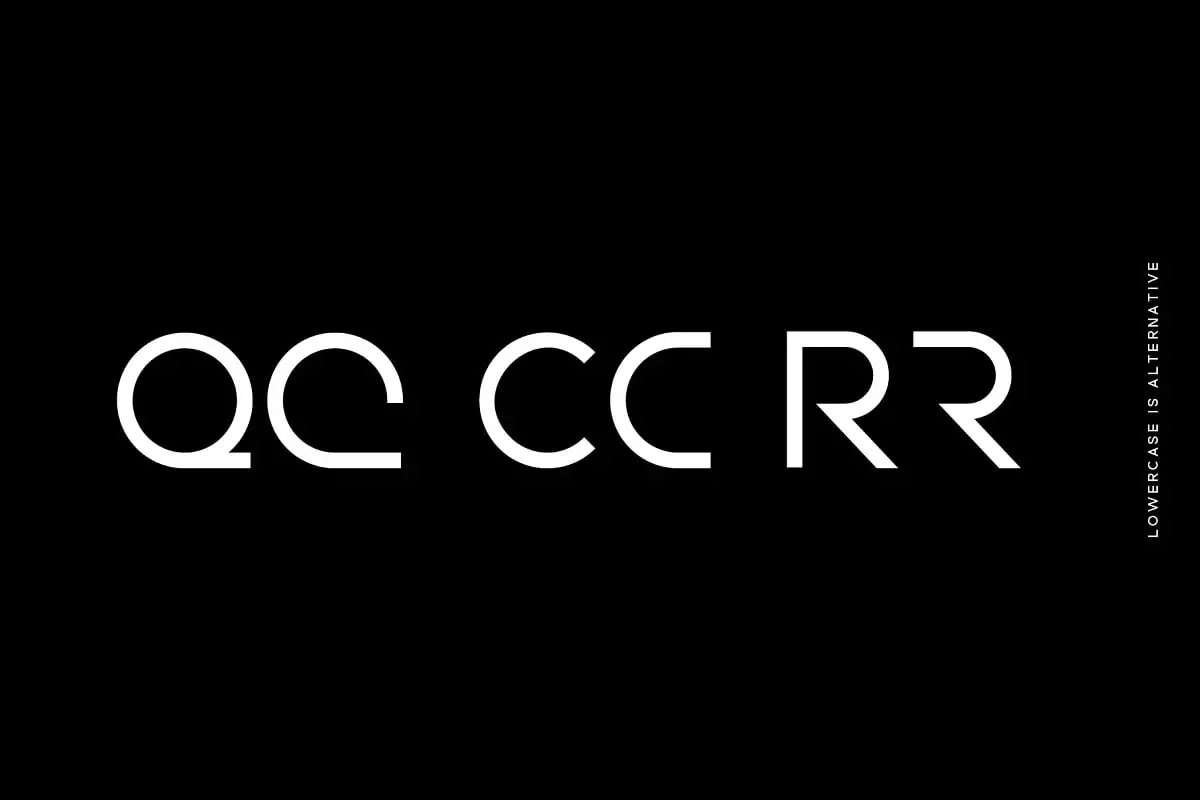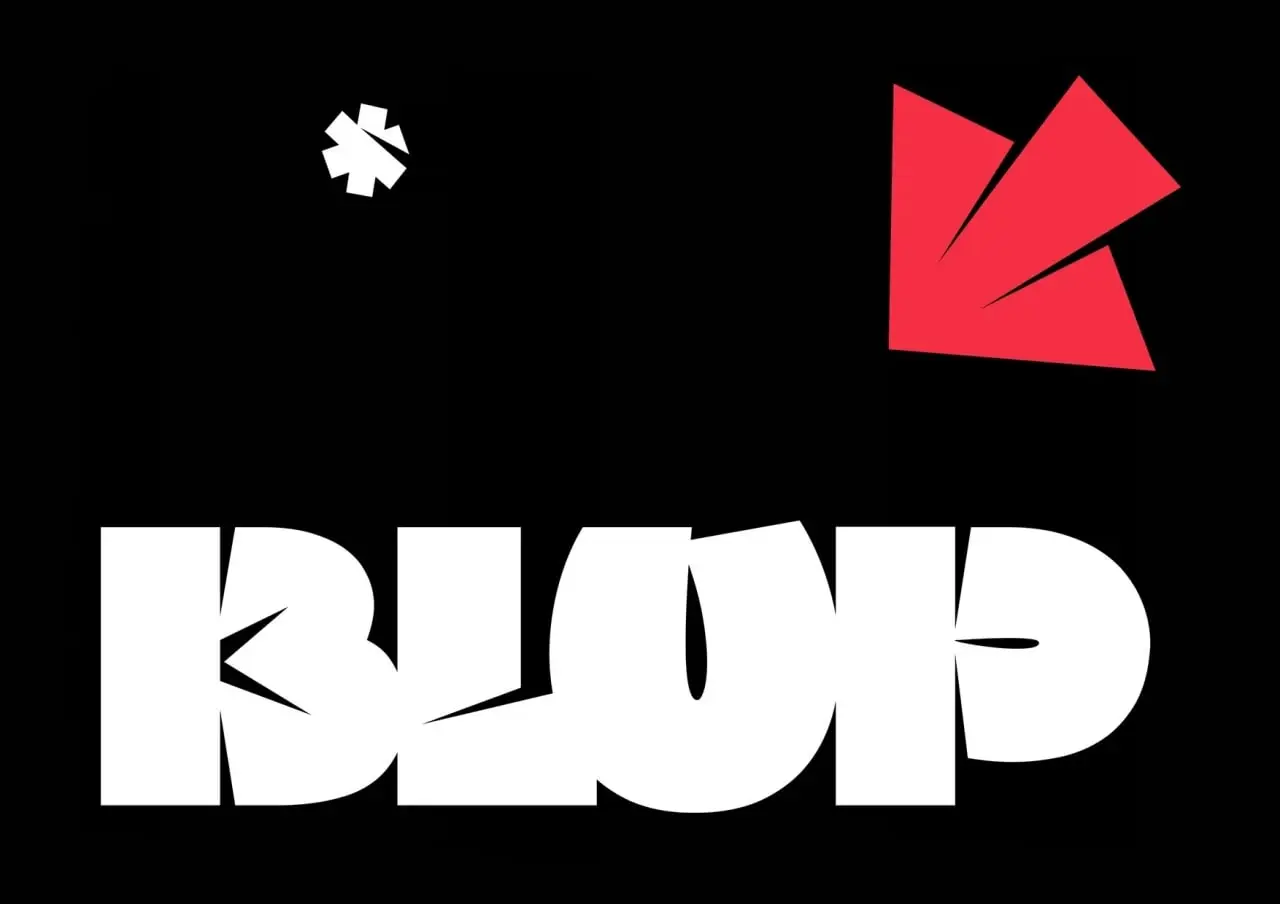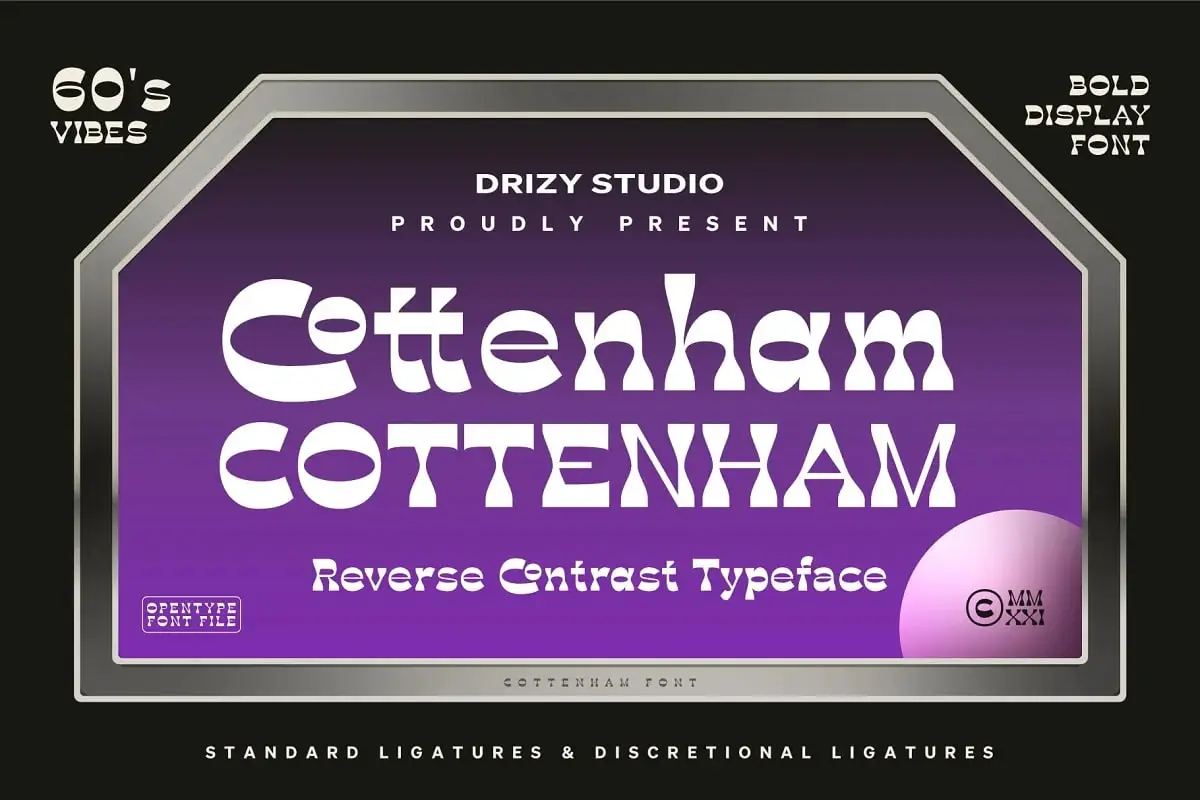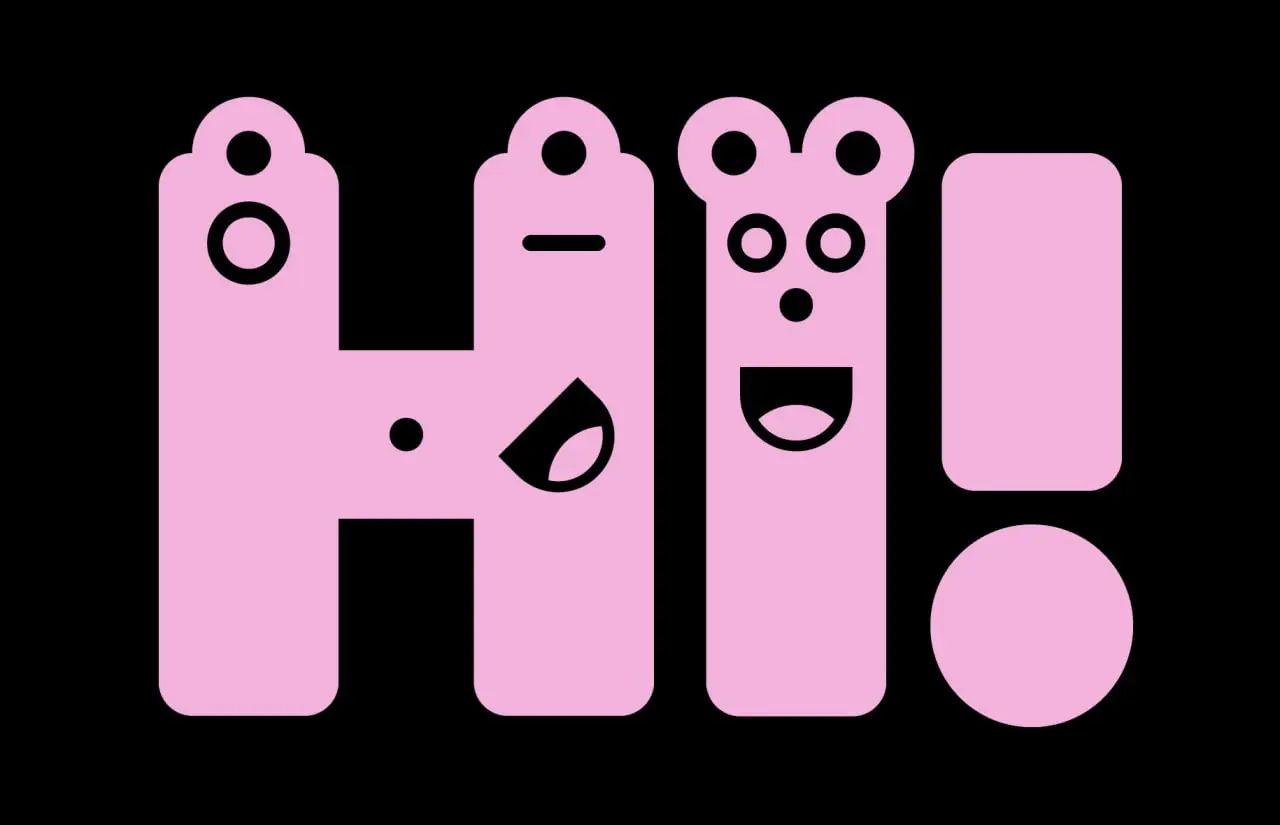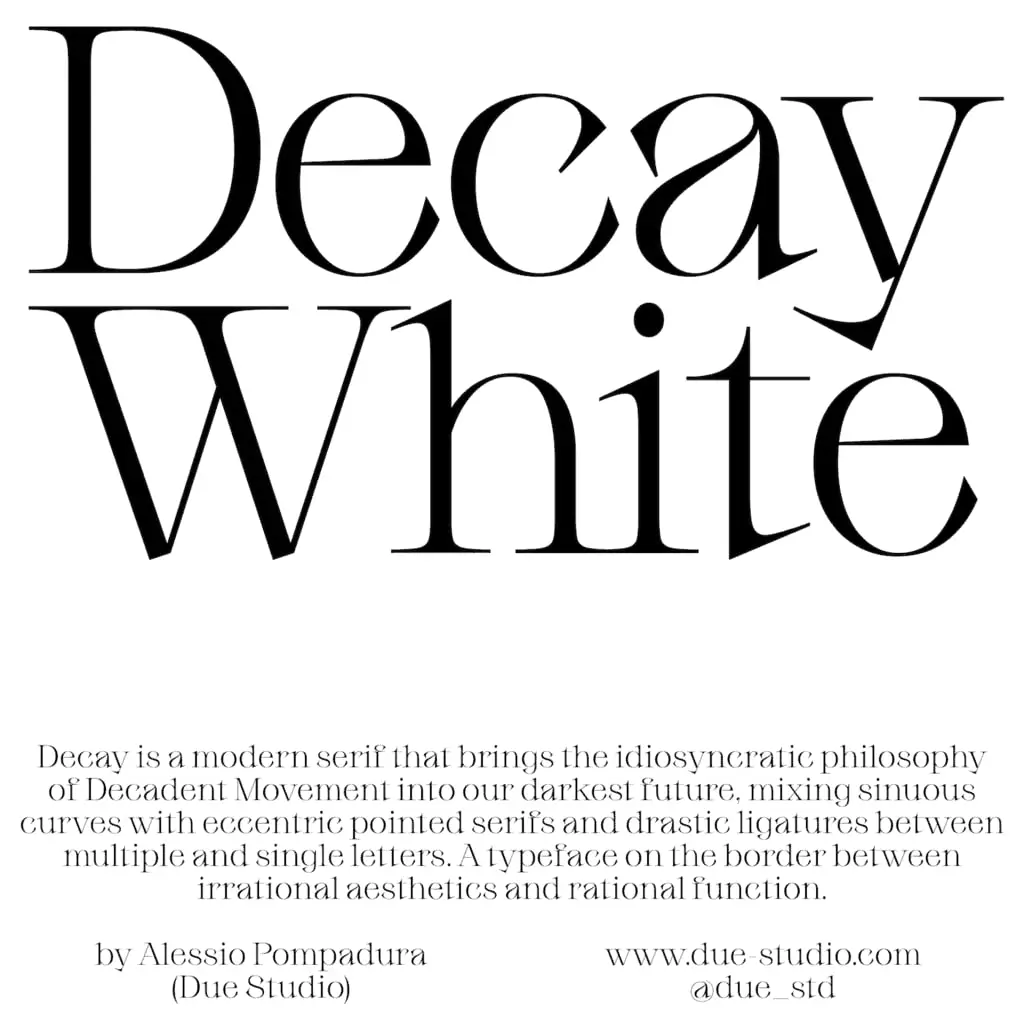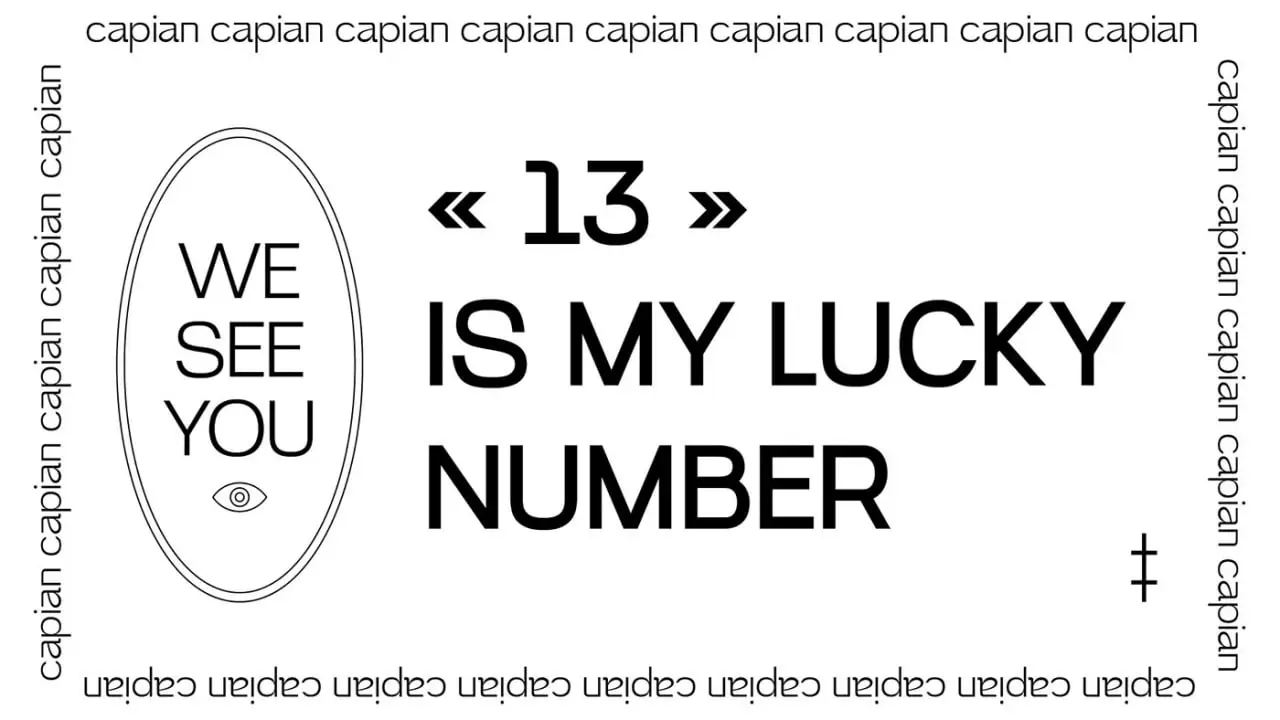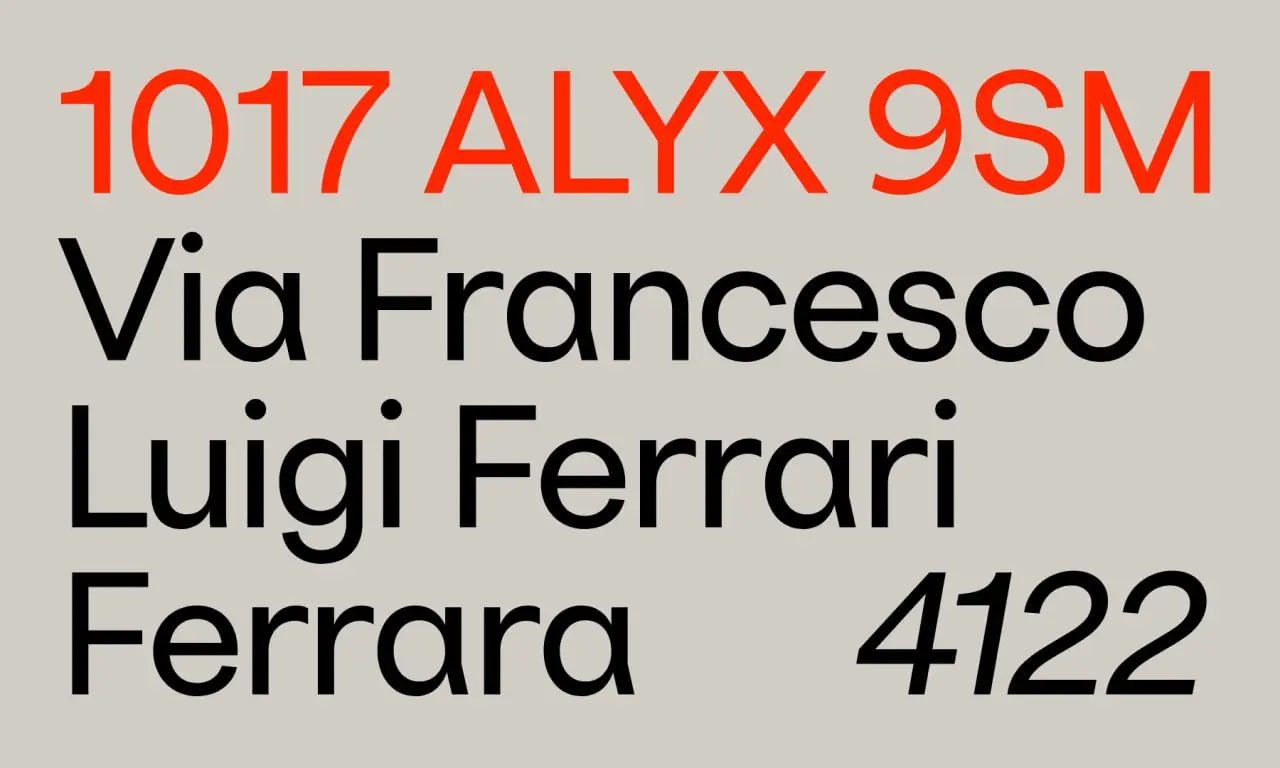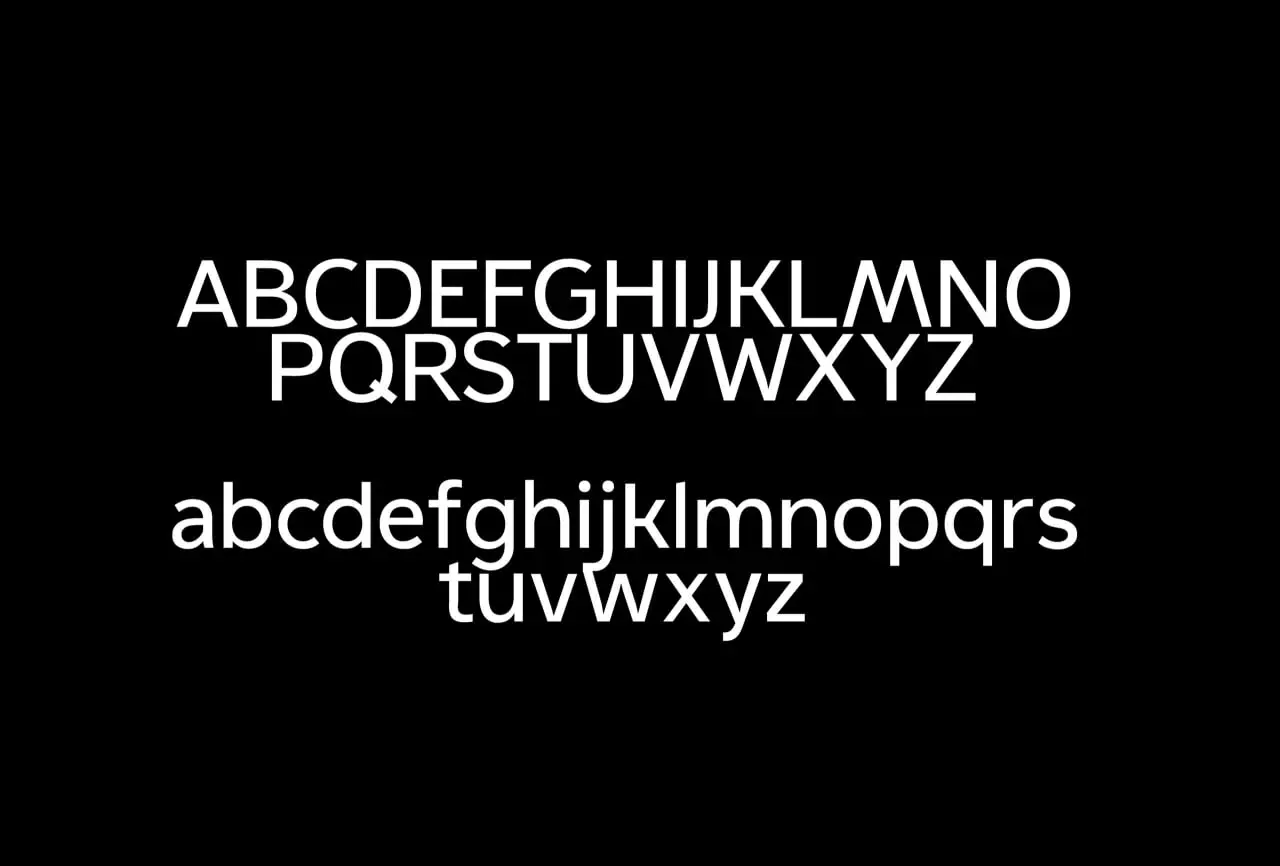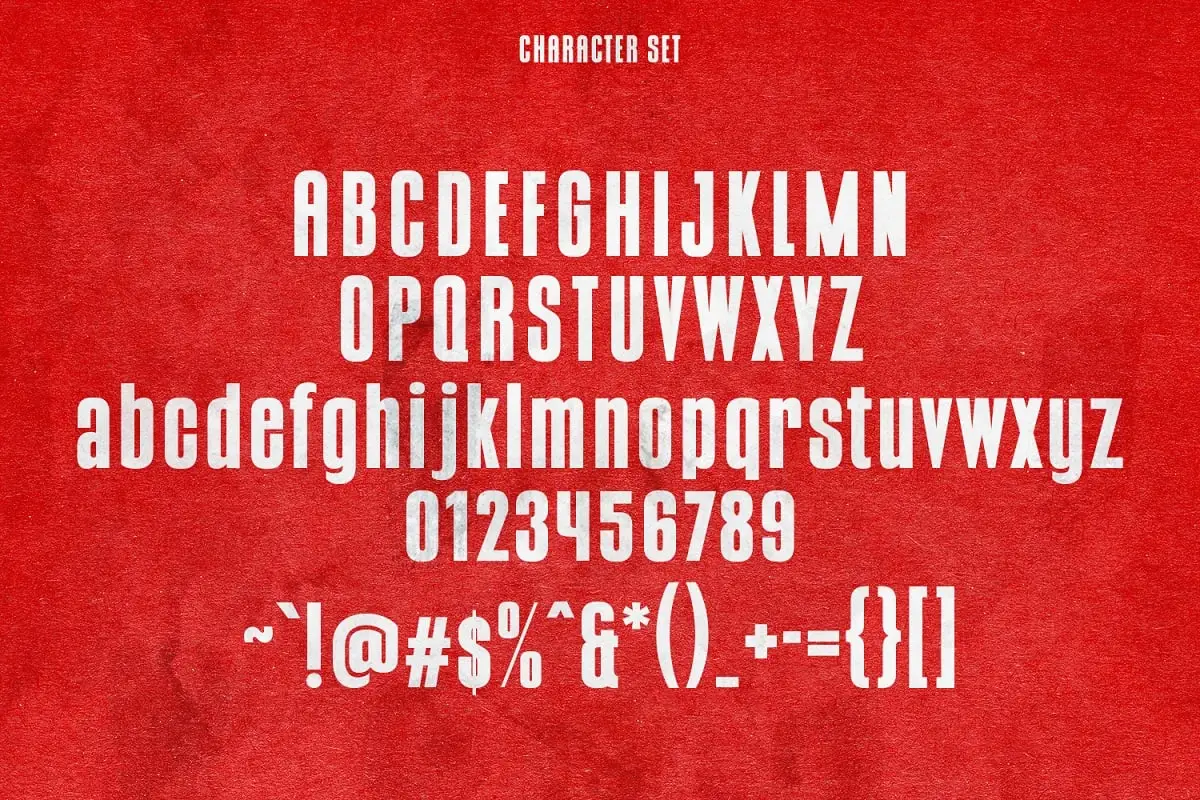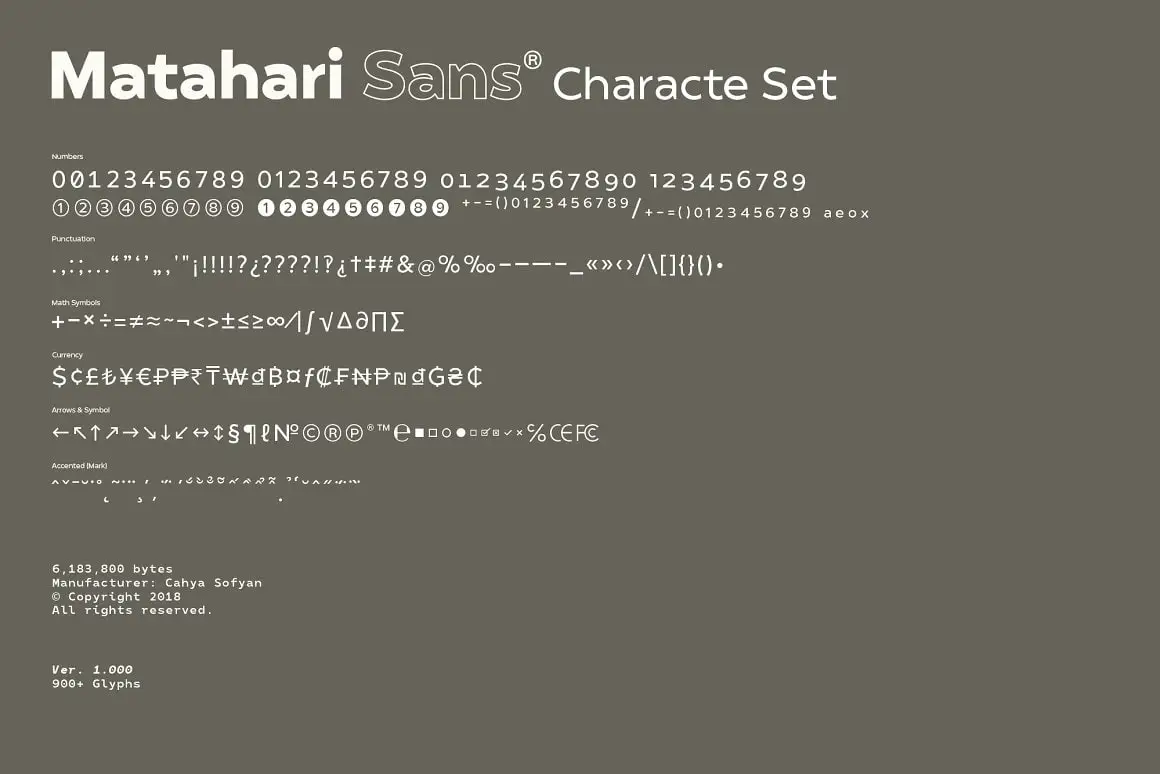
Minomu Font By Owl King
Minomu is a gorgeous blend of modern flair and classic elegance—perfect for logos or editorial projects that need a touch of class. ✨ This typeface is like a warm hug for your designs! 🫂
Lineyka By Ilya Kolobov
A versatile digital asset that brings clean, modern vibes to any project! 🖌️ Whether you’re into branding or web design, Lineyka offers high-resolution elements that are a breeze to customize. Get ready to level up!
Glosta
Glosta is a design chameleon—it fits perfectly in branding, web, or print work with its rich set of graphic elements. 🎉 It’s like having a secret weapon for making your work look instantly polished!
Dr-Sidekick Display (C) Daniel Reed
This display font is bursting with personality—perfect for branding or advertising that needs to stand out! 💥 Its modern aesthetic and multiple weights give you all the flexibility you need to make a statement.
Frosttype Blank Grotesk Font Family
A modern, geometric powerhouse that’s a must-have for any serious designer! 🧊 With multiple weights from light to bold, this family is the ultimate workhorse for logos, web design, and more.
Dániel Domonkos-Capian
Elegant curves meet contemporary design in this stunning typeface! 🌸 Perfect for branding and web design, it supports multilingual characters too—so your message travels far and wide.
Decay White By Due Studio 2 X Otf
Stunningly elegant and modern, Decay White from Due Studio adds a refined touch to any project. 🕊️ With Regular and Bold styles in OTF format, it’s a no-brainer for sophisticated typography!
Cottenham Font
A stylish serif that’s as readable as it is beautiful—perfect for body text or elegant headlines! 📖 Cottenham brings classic charm with a modern edge that designers absolutely love.
Blup
Blup is a fresh, modern design asset that’s incredibly easy to customize and integrate into any workflow. 💙 Perfect for both web and print, it’s a vibrant addition to your creative arsenal!
Button Smash Font Collection
A whole collection of handcrafted typefaces that scream personality! 🎮 With bold, italic, and regular weights, these fonts are easy to read but packed with character. Your designs will thank you!
Atom-Sharp Edge Future Scifi Font
Need a font that screams “future”? 🚀 This sci-fi inspired typeface is bold, edgy, and perfect for tech brands, gaming logos, or UI designs. It’s a total showstopper!
Baunk Typeface
Clean, contemporary, and super versatile—Baunk is a modern typeface that works everywhere! 📐 With multiple weights and OTF/TTF formats, it’s ready for branding, web, or print projects.
Wagon – Free Modern Serif
Elegant, free, and oh-so-modern—Wagon is a serif font that brings class to any project! 🎩 Its clean aesthetic and multiple weights make it perfect for editorial or branding work without breaking the bank.
Youth Mojito-A 3D Bubbly Svg Font By Silverstag
Playful, bubbly, and totally eye-catching—this 3D SVG font is pure fun! 🧉 Perfect for party invites, kids’ branding, or any project that needs a splash of joy and dimension.
Offenders Club Sans Serif Script Duo
The perfect pairing—a clean sans serif meets a fluid script! 🤝 This duo is a dream for modern branding and web projects, giving you two stunning styles in one convenient pack.
Nightcore-Emo Horror Font
Dark, edgy, and dripping with gothic vibes—this font is perfect for horror-themed projects or alternative branding. 🖤 Its intricate details and multiple weights make it a versatile nightmare come true!
Studio Sun Matahari Sans Font Family
A modern, highly legible sans-serif family that does it all—branding, web, UI, you name it! ☀️ With multiple weights, this font is as flexible as it is beautiful.
Tension Font By Baptiste Bernazeau
Bold, geometric, and undeniably modern—Tension makes a powerful statement! ⚡ Its clean lines and multiple weights are ideal for headlines and branding that demand attention.